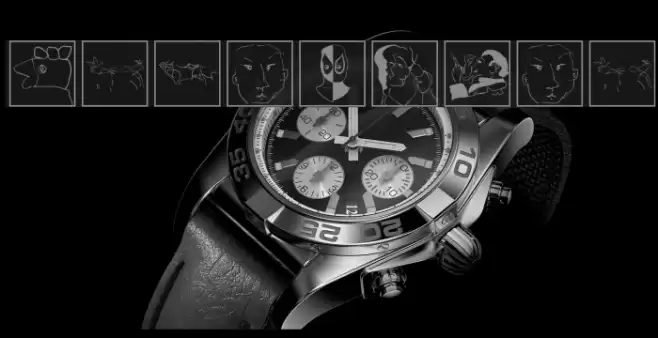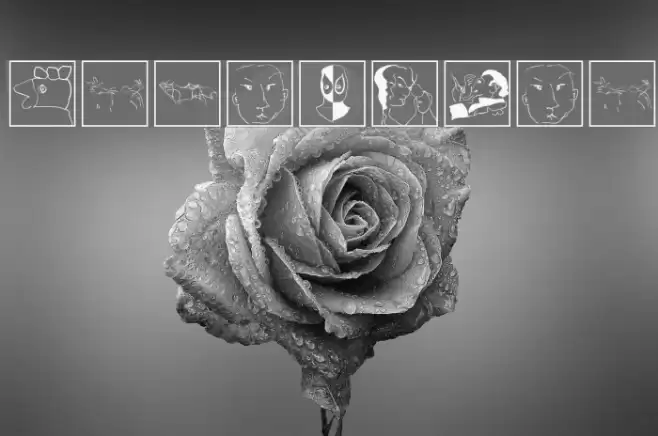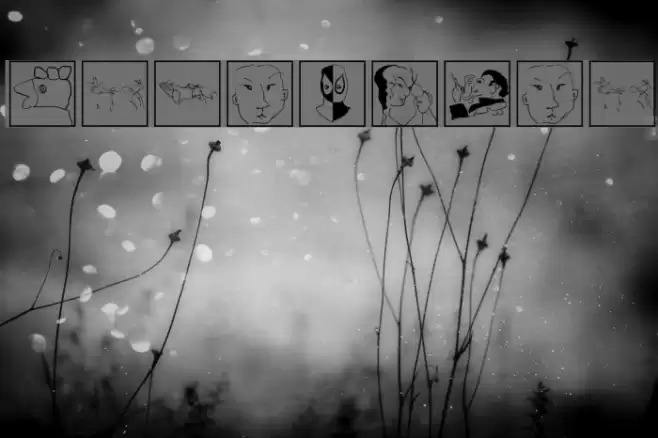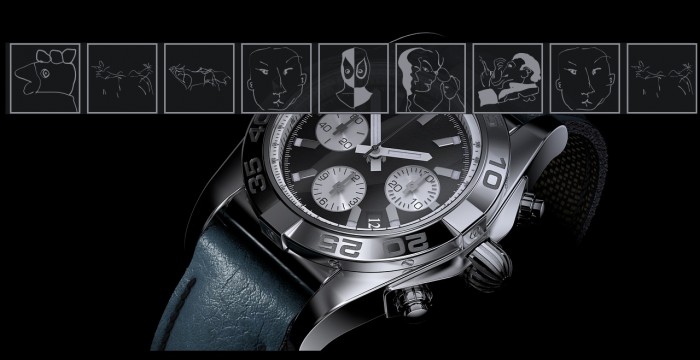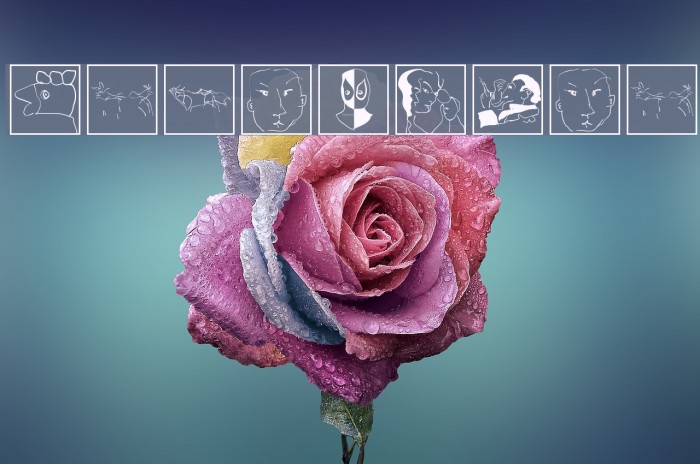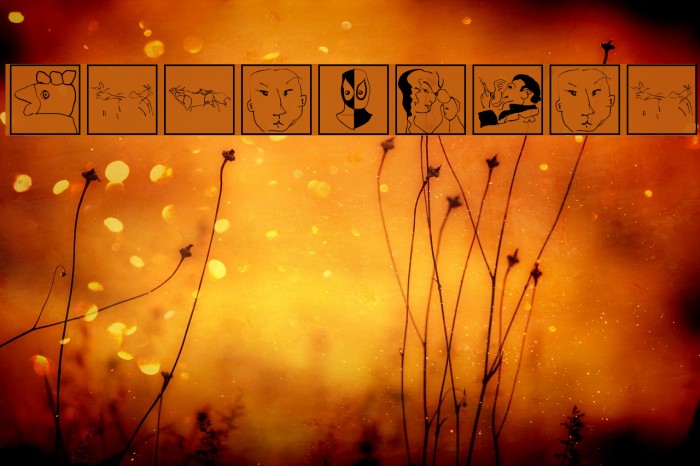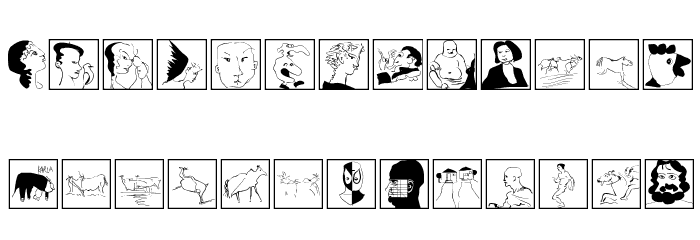
MsKetches Font
MsKetches Description
A decorative display set featuring hand-drawn sketch illustrations in place of traditional alphanumeric characters, each glyph contained within a square frame. The artwork varies from abstract faces, animals, and figures to whimsical and comic-style drawings, all rendered in a loose, expressive line art style with occasional bold fills.
Hand-drawn sketch illustrations replace standard characters in a playful, artistic style from Uncategorized fonts.
- Proposed Projects: Art posters, creative branding, album covers, editorial illustrations, children’s books, unique invitations.
- Overall Style: Decorative, Artistic, Whimsical
- Use Case: Logos, Posters, Art projects, Headlines